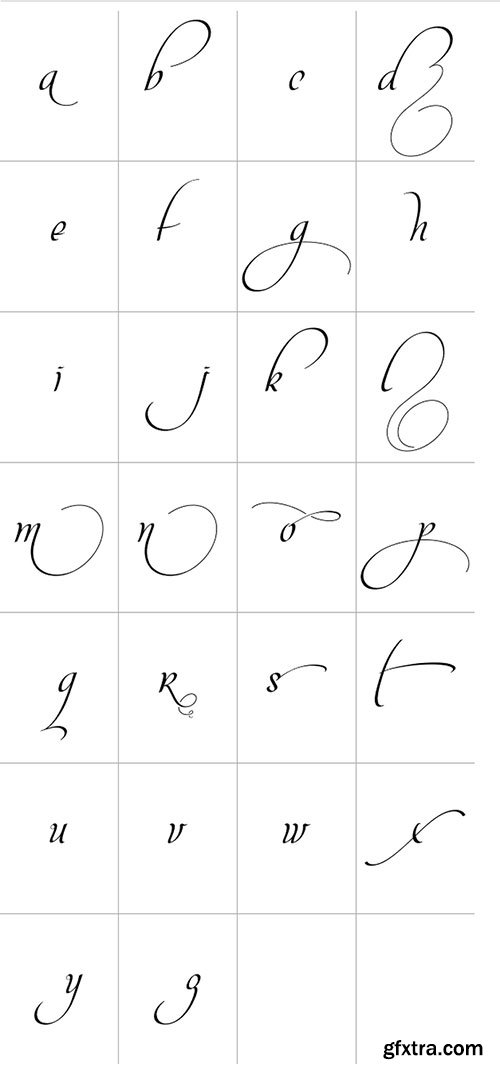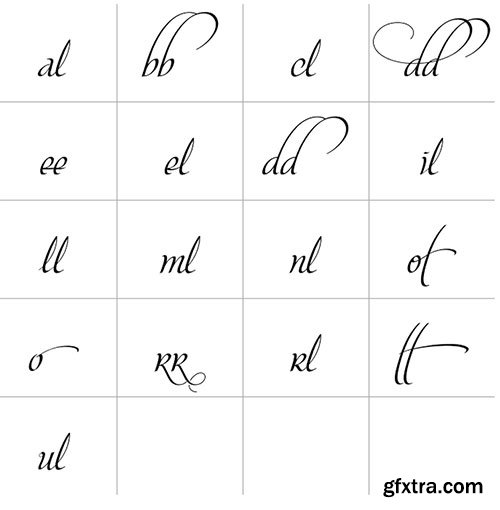
Mon Amour Script Pro Font Family 4 Fonts
Mainly for invitations; Mon Amour Script Pro, is an Open-Type font, which will delight you.
It has the alternate, swash and ligature functions.